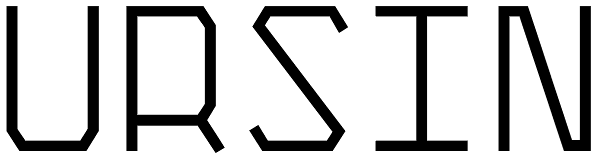
Ursin
Ursin is a geometric monospace sans-serif typeface, with four weights, intended for display typography. The design came from a former logo design, Astroika, the name of a Vodka brand, with a russian feeling. I really loved this logo, that's why I...
Ursin